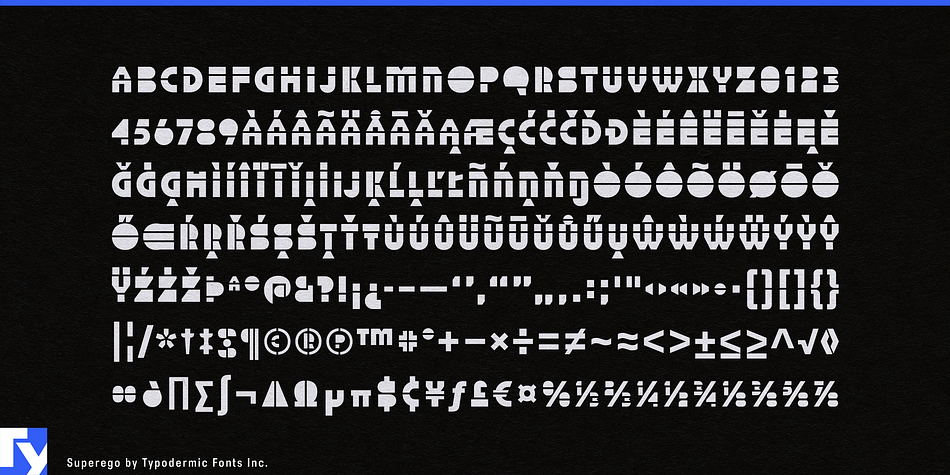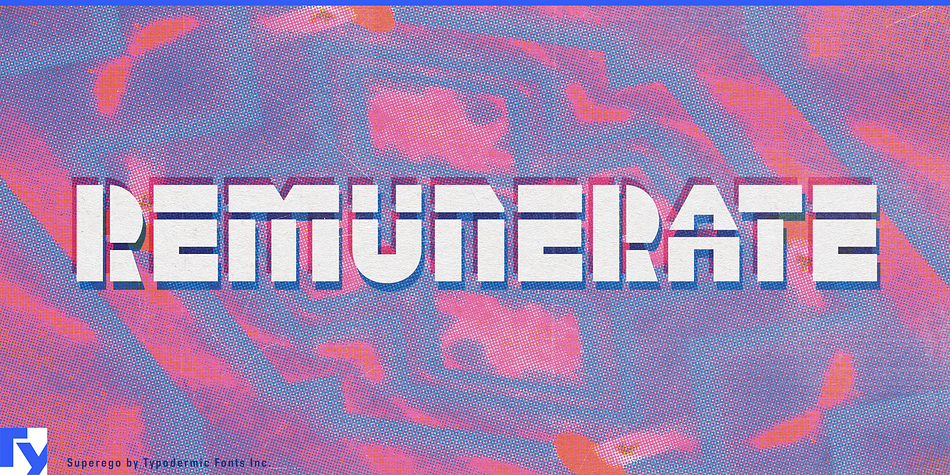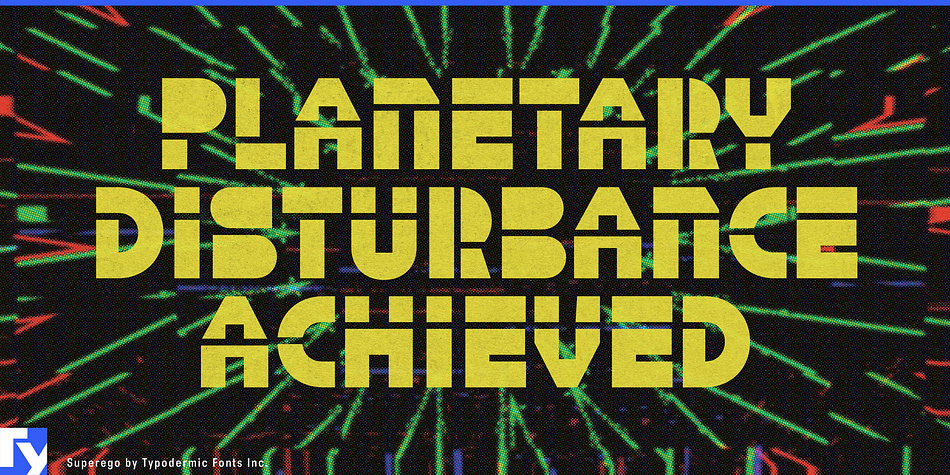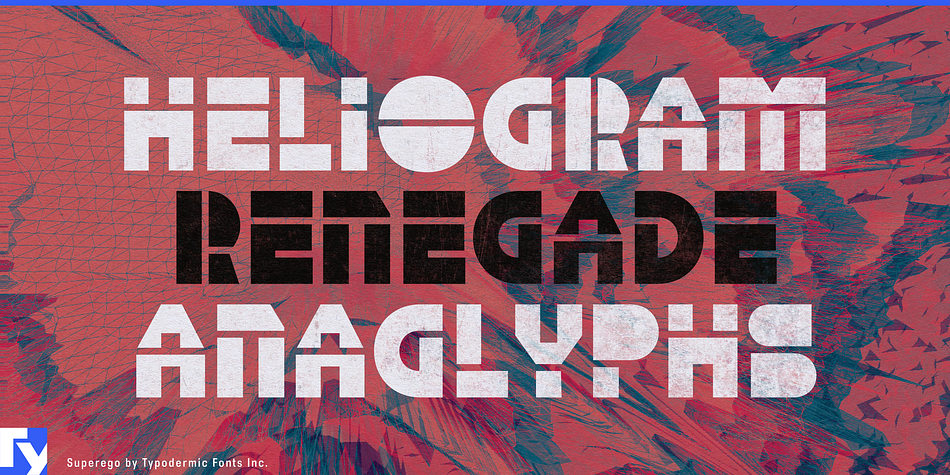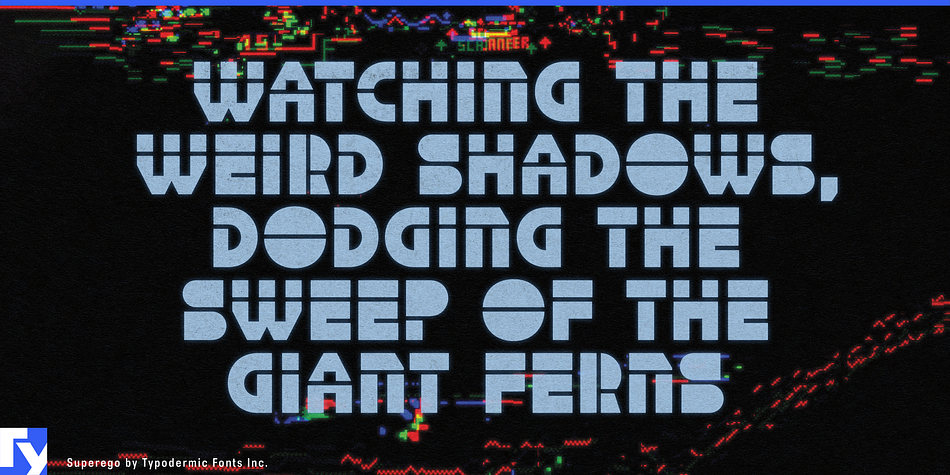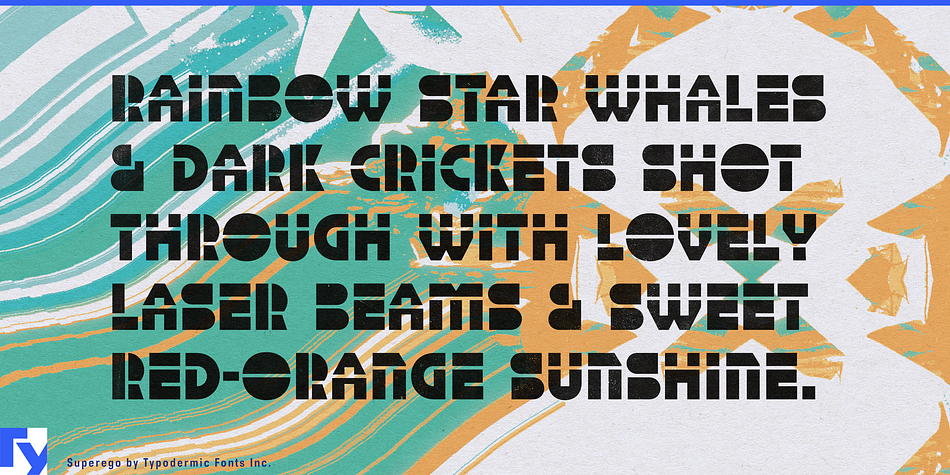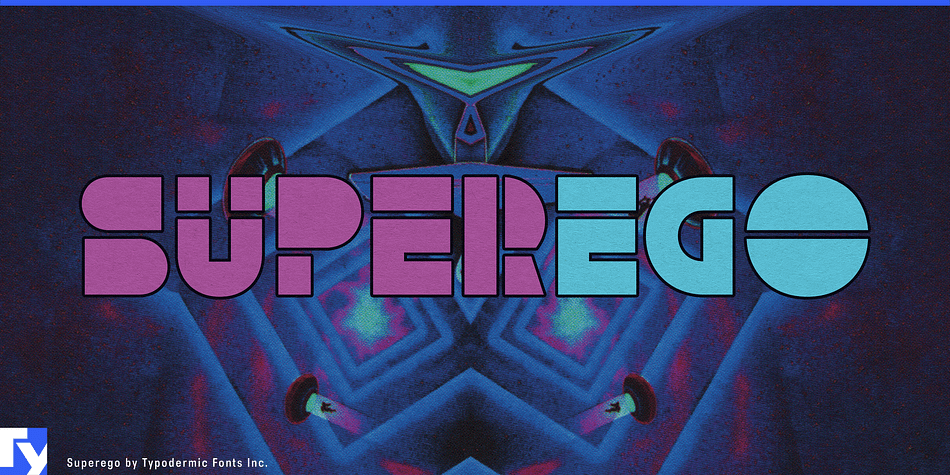
Superego is a retro font published by Typodermic Fonts Inc.
Superego is a geometric-techno font inspired by the cabinet graphics for the 1981 Stargate arcade game.